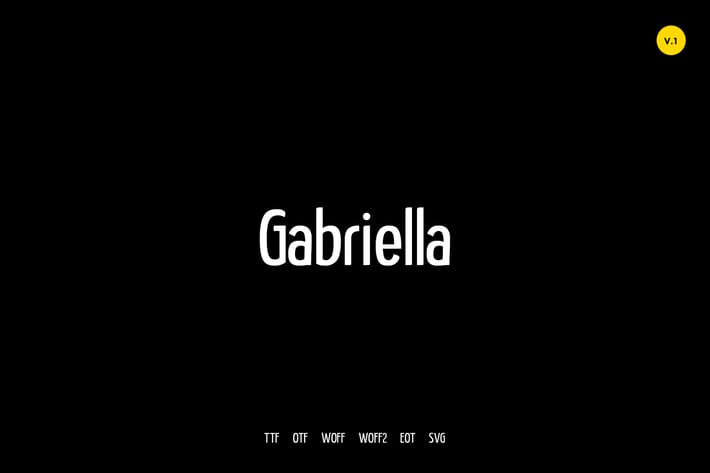
Gabriella - Modern Typeface + WebFonts
Gabriella Typeface
Gabriella is a modern Sans Serif typeface very much suitable for Film Posters, headlines, Block letter, Subheading, Logo Designs, Big Banners. Creative & Decorative Typography Web Designs.
Gabriella is perfectly suited for eye-catching headlines. Its clean appearance and mid-weight make it a wonderful candidate for being paired with more decorative, elaborate subheading fonts.